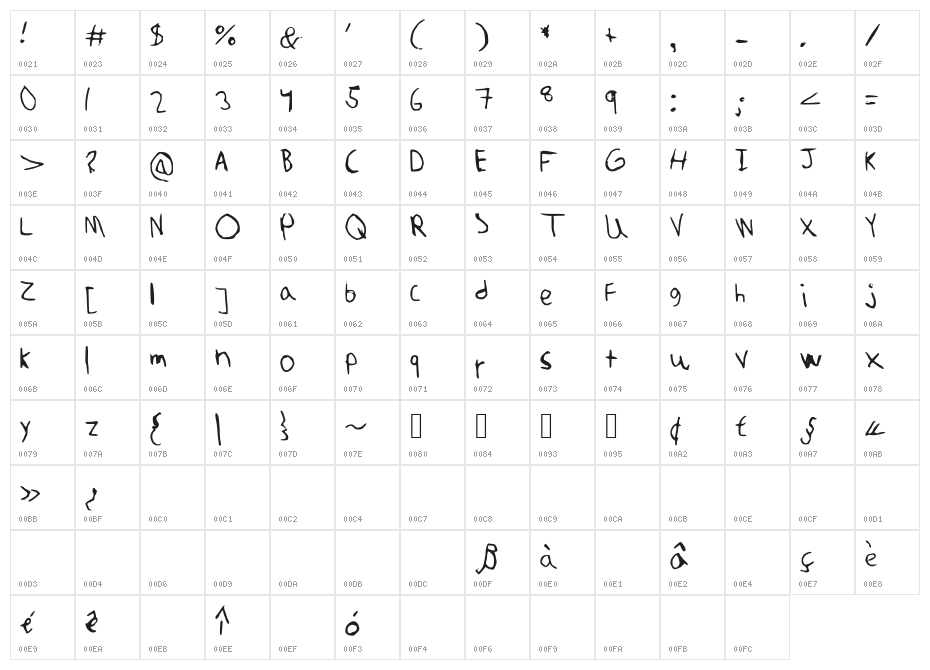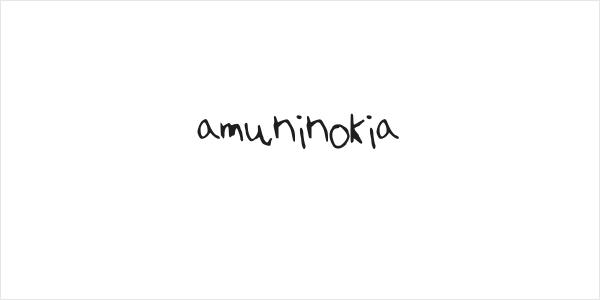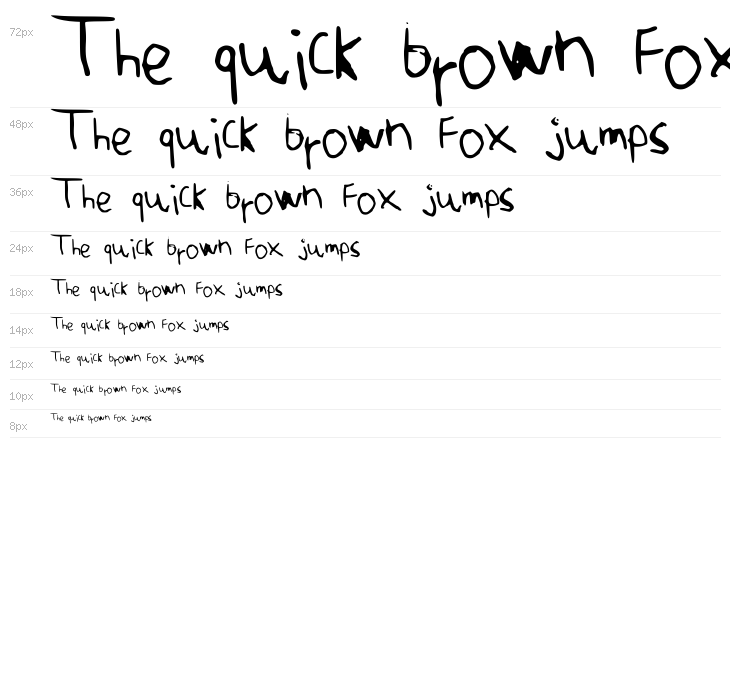
amuninokia Font
amuninokia Description
This font exudes a playful and informal vibe, characterized by its hand-drawn, uneven strokes that give it a casual, whimsical appearance. The letters are irregular in shape and size, adding to the font's charm and uniqueness. The uppercase and lowercase letters maintain a consistent style, with a slightly exaggerated, cartoonish flair. Numbers and special characters follow the same playful design, making the font suitable for creative and fun projects. Its handwritten style suggests a personal touch, making it ideal for projects that require a friendly and approachable feel.
| Overall Style | Casual, Whimsical |
| Use Case | Headlines, Informal text, Creative projects |
| Proposed Projects | Ideal for children's books, greeting cards, playful branding, and casual invitations. |